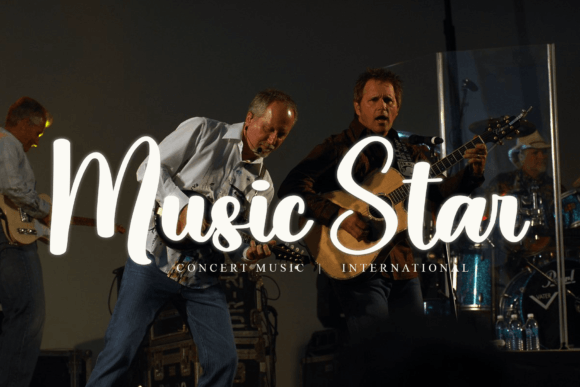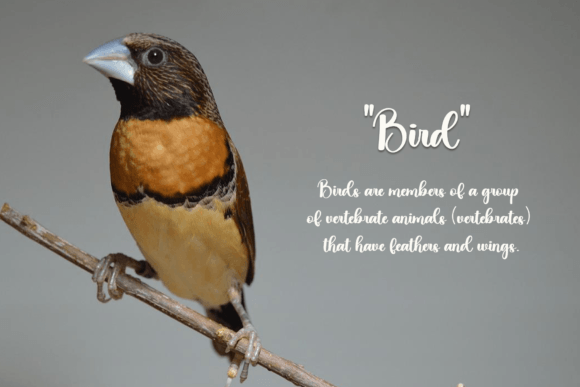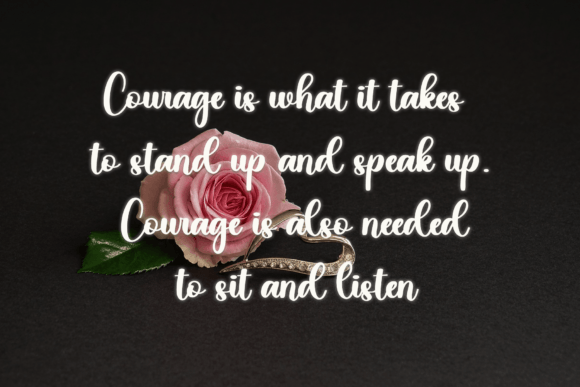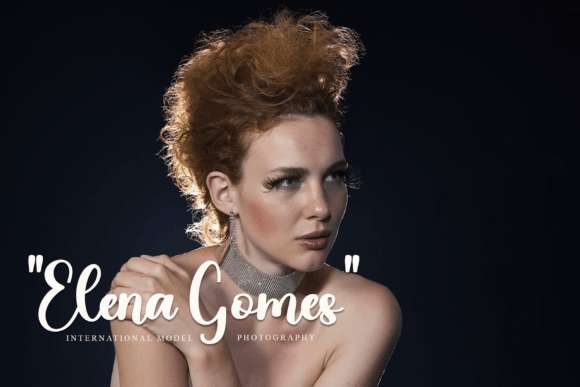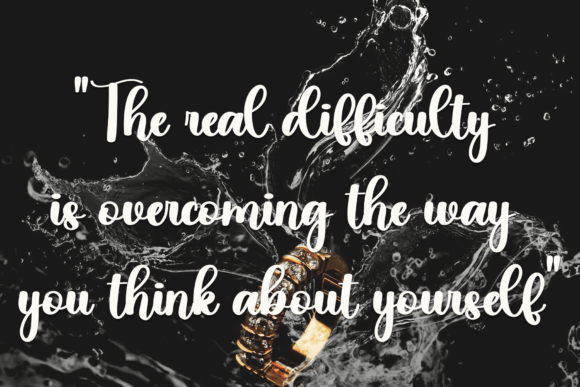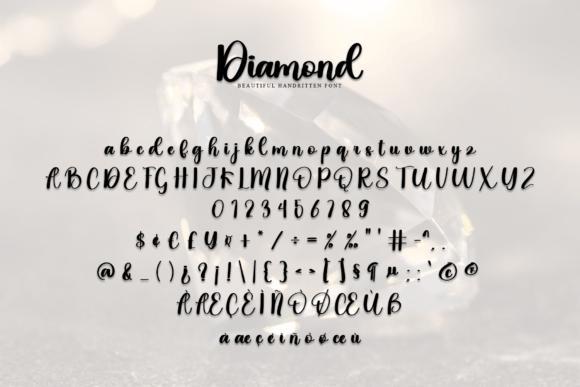
Diamond Font: Elevate Your Designs with a Delicate Handwritten Touch
In the world of typography, fonts play a crucial role in conveying the tone and personality of a design. For crafters, designers, and creative enthusiasts, finding the perfect font can be a daunting task. However, if you’re looking for a cool and unique design element, look no further than the Diamond Font. This delicate handwritten font is carefully crafted to add a touch of elegance and sophistication to your projects.
What is Diamond Font?
Diamond Font is a beautifully designed handwritten font, perfect for adding a personal touch to your designs. Its delicate and intricate strokes make it an ideal choice for a variety of projects, including letters, invitations, food products, titles, and more. The font’s unique design ensures that it stands out from the crowd, giving your work a distinctive and stylish look.
Features of Diamond Font
- Handwritten with love: Diamond Font is carefully crafted with precision and attention to detail, giving it a warm and personal feel.
- Delicate and elegant: The font’s intricate strokes and curves make it perfect for designs that require a touch of sophistication.
- Cool and unique: Diamond Font’s distinctive design ensures that your work stands out from the crowd.
- Versatile: Use it for letters, invitations, food products, titles, and more.
- Easily readable: Despite its delicate nature, Diamond Font is easy to read, making it perfect for body text and headings.
Use Cases for Diamond Font
Diamond Font is an incredibly versatile font that can be used in a variety of projects. Here are some ideas to get you started:
- Wedding invitations: Add a touch of elegance and sophistication to your wedding invitations with Diamond Font.
- Food blogs and recipes: Use Diamond Font to add a personal touch to your food blog or recipe cards.
- Stationery and greeting cards: Create beautiful stationery and greeting cards with Diamond Font.
- Branding and packaging: Use Diamond Font to add a unique touch to your brand’s packaging and marketing materials.
- Social media graphics: Add a personal touch to your social media graphics with Diamond Font.
Tips for Using Diamond Font
To get the most out of Diamond Font, here are some tips to keep in mind:
- Pair it with bold fonts: Combine Diamond Font with bold fonts to create a striking contrast.
- Use it for headings and titles: Diamond Font is perfect for headings and titles, but can also be used for body text.
- Experiment with colors: Try pairing Diamond Font with different colors to create a unique look.
- Don’t be afraid to get creative: Diamond Font is a versatile font that can be used in a variety of creative ways.
Diamond Font is a beautiful and delicate handwritten font that can elevate your designs to the next level. Its unique design, versatility, and elegance make it perfect for a variety of projects. Whether you’re a designer, crafter, or creative enthusiast, Diamond Font is sure to become a favorite in your toolkit. So why wait? Download Diamond Font today and start creating stunning designs that are sure to impress!